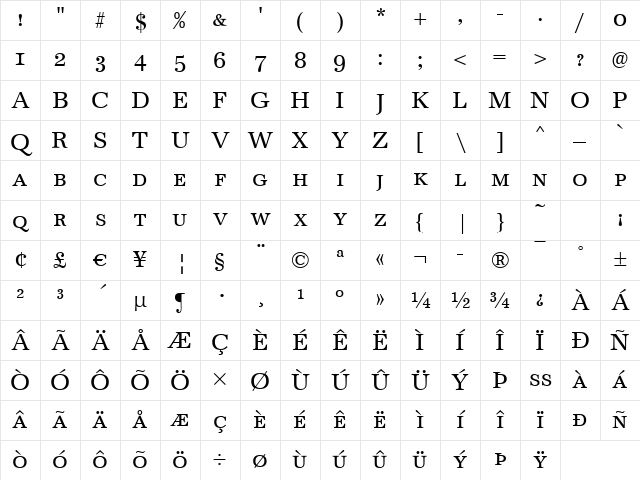
Antiqua-Caps Regular
Antiqua-Caps Family
Design Context for Antiqua-Caps
Antiqua-Caps is a composed and adaptable typeface that performs quietly and consistently across a wide range of design contexts.
Pro Tip: Use Antiqua-Caps in both headline and body roles to test its range before committing to a single application.